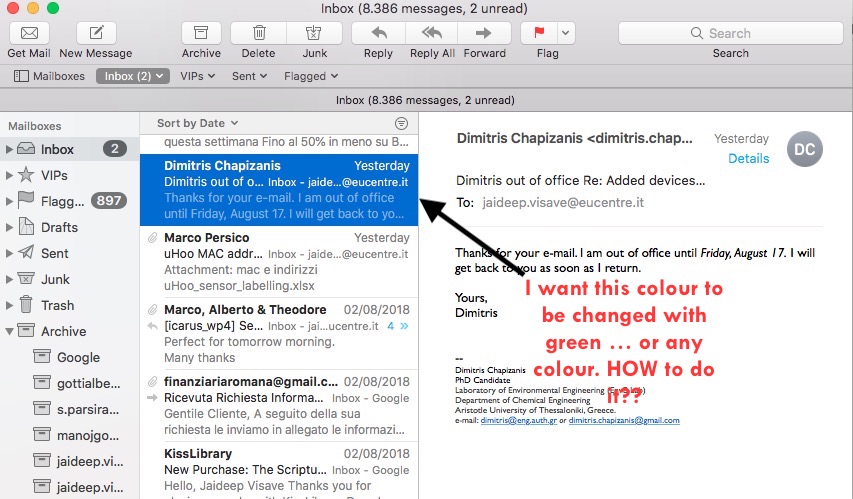
1) I like the fonts (for MS office in Mac and also for pages) like -- "the" in this word ("the") the 't' and 'h' the height of vertical lines should be tall and 'e' should be normal (the same height is also ok). so please suggest me some fonts.
2) MOST IMPORTANT - In Mail app of MacBook Pro, if you select the any email to view, it shows in the blue colour, I want to change the colour to green. HOW I CAN DO IT.
As per your font question, I'm not really that familiar with font design, but it would help if you would give the name of fonts you like the look of. You can easily see samples of every font in your system by opening up the app called "Font Book" on your Mac (Go to Launchpad>Other>Font Book) or from the Finder, click Applications>Font Book. From there you can select a font in the left column and see sample text from it on the right.
On your second question, that blue should be your system's highlight color. Go to System Preferences>General and look for the "Highlight Color" dropdown. You can choose any color your want. It won't just affect Mail but any other app that you click on something to highlight it.
Oh my dear friend, You have solved my problem ... thanks a lot. It made me happy. I dont know the font (this was the problem) I want to know the name of he font which has the above mentioned (in previous, 1st question) characteristics. If I could have known the font name, I would have downloaded it.
Since you don't know the name of the font you are interested in, that is why you should use the Font Book app to look through all of the fonts installed on your Mac (there are a lot). It will show you sample text for each font you select so you can look visually to find the one that is pleasing to you and then on the left-hand side you will see the name of it.